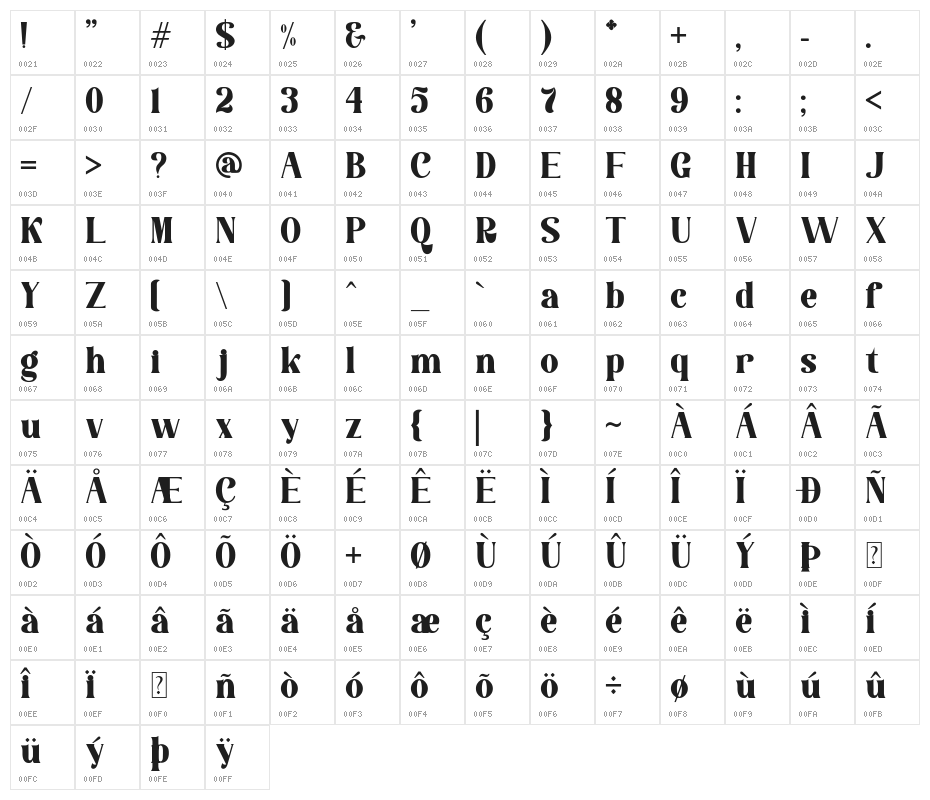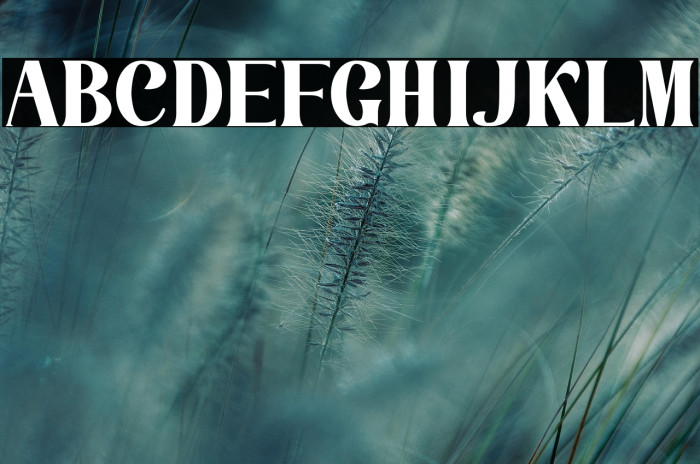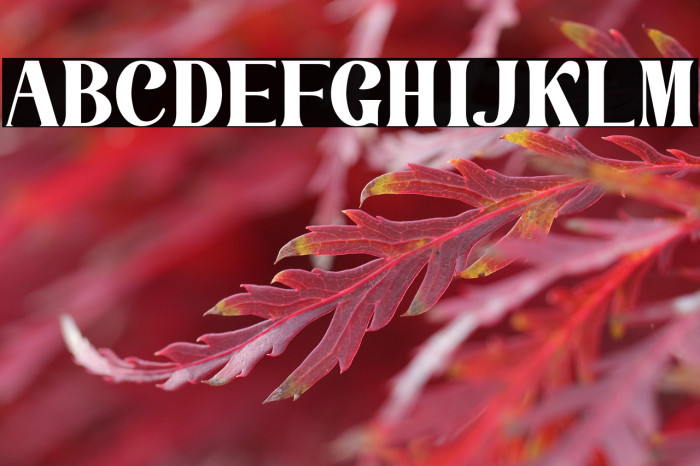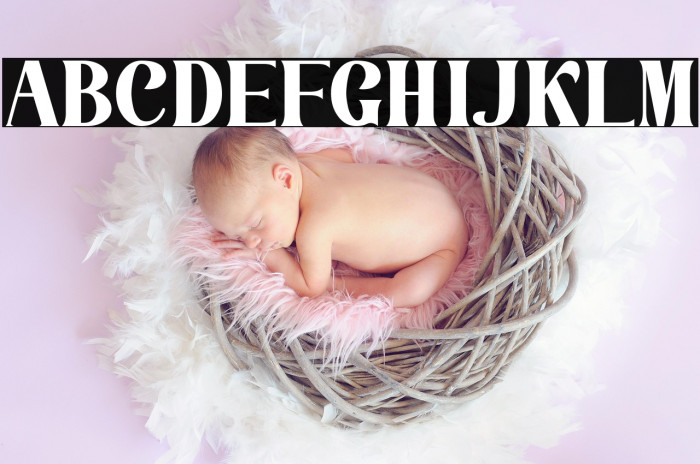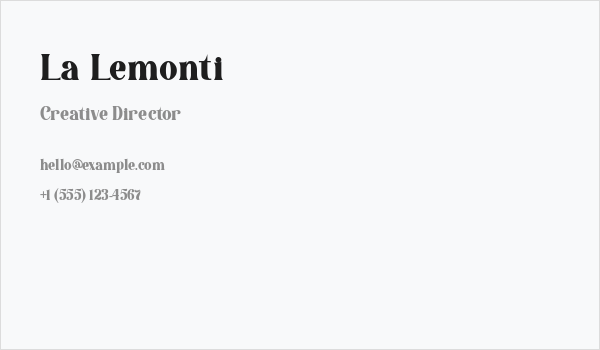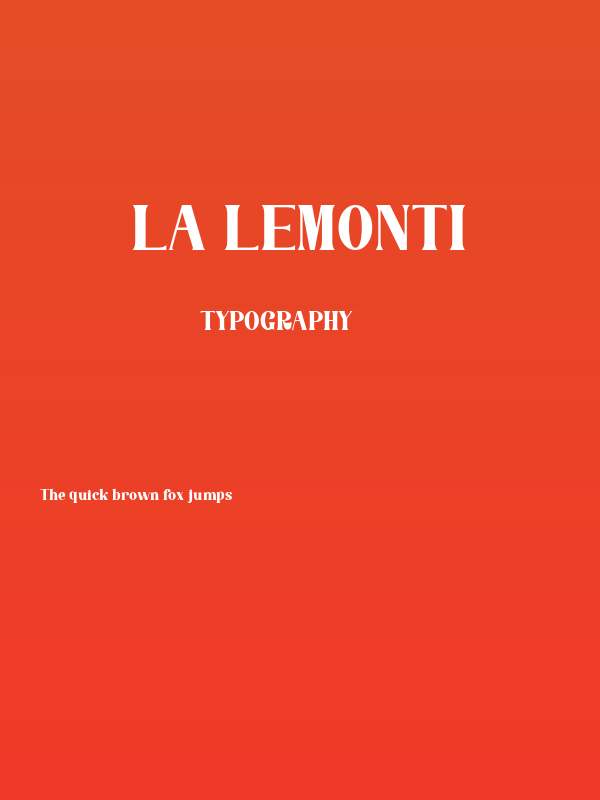
La Lemonti Font
La Lemonti Description
This font features a bold and dynamic style with high contrast between thick and thin strokes, giving it a dramatic and eye-catching appearance. The uppercase letters are particularly striking, with unique serifs that add a touch of elegance and sophistication. The lowercase letters maintain a consistent style, complementing the uppercase with their own flair. Numbers and special characters are designed to match the overall aesthetic, ensuring a cohesive look across all text. The font's boldness and distinctive character make it suitable for impactful headlines and branding projects.
| Proposed Projects | Ideal for branding, headlines, posters, and any design requiring a strong visual impact. |